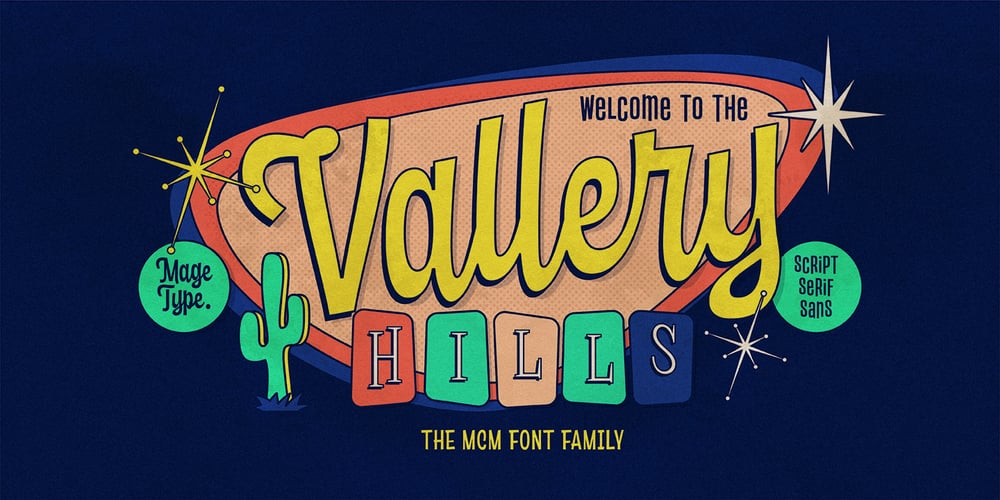
MGT Vallery Hills Font Family was designed by Setiadi Karya Pertiwi and published by Magetype. MGT Vallery Hills contains 6 styles and family package options. When I was surfing the internet, with rock n ‘roll music. I accidentally found a picture of a hotel sign with a very unique style, namely: Mid-century Modern (MCM). It looks very pretty and charming to me. And inspired me to create Font Family. And I am proud to present the Vallery Hills Font Family.This font is in the Retro style of the 50s to 60s. Okay, here are the specifications.1. Vallery Hills SchriftThere is one unique thing about this font. Usually, script fonts with Retro style always have an angled anatomical shape, but I made this font upright. The goal is to make a difference with other script fonts I’ve seen. By the way, this font comes in two styles, namely: Regular and Bouncy. Why do I make it like that? Because I want to make this font into two different functions, namely: If you want to make it a Display Font, which is usually used for Headings, then use the Bouncy style. And if you want to use it as Bodytext, then use Regular.2. Vallery Hills SheriftThis second font is a font that is very synonymous with the Mid-century Modern (MCM) era. A very distinctive form of the serif font of that era. Similar to the first font, this font also has 2 styles, namely: Regular and Bouncy.You can combine this font with the other two fonts in Vallery Hills. It could be Title, or Bodytext. And you can also combine two styles, namely: Regular and Bouncy. Try!3. Vallery Hills Suns SheriftThis last font is Sans Serif. Also has 2 styles like his two brothers, namely: Regular and Bouncy. The goal is actually the same. I am sure you are cooler to create a design that uses this font family.Well, there is one advantage of this font from its two siblings, which is that it has a feature, namely: SMALLCAPS. Which will be an option when you are bored with the mediocre shape or style of Lowercase. Try combining the Smallcaps with Uppercase or Lowercase. Must be cool! : DOops, almost forgot. This font consists of several font formats, namely: OTF, TTF, and Webfonts. And of course everything is MULTILANGUAGE.OK, friends. That’s all I can describe about the Vallery Hills Family. Hopefully it will please all of you. Cheers!